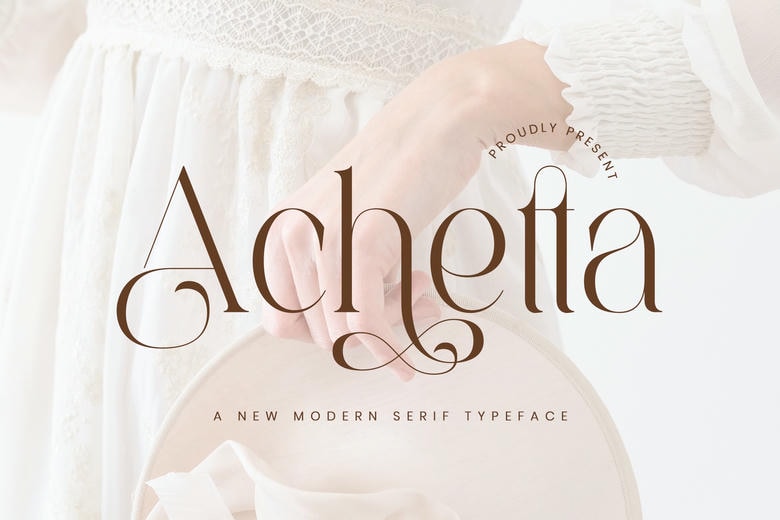
Achetta Font
Achetta Stylish Ligature Typeface, inspired by the famous minimalist logo perfect for the purposes of designing templates, brochures, videos, advertising branding, logos and more.
Achetta Serif Font